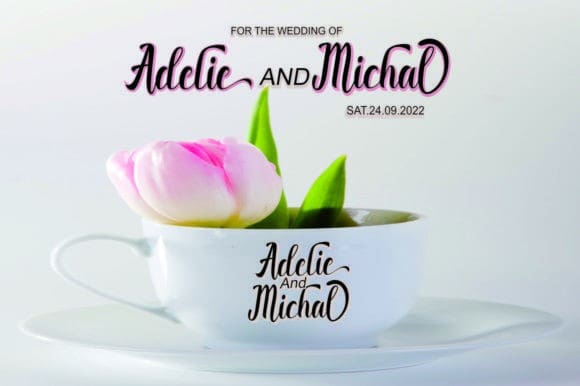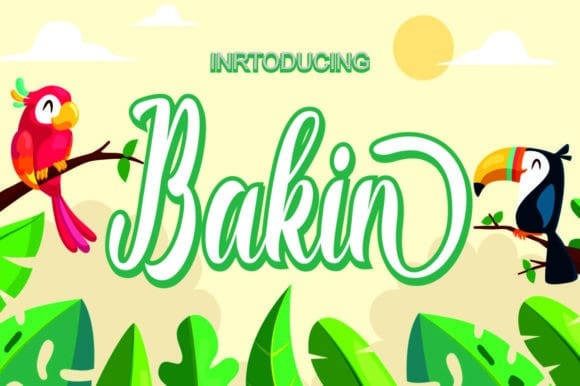
Bakin Script Font
Bakin Script Font is a lovely, well balanced and featuring a nice flow script font. It is PUA encoded which means you can access all of the glyphs and swashes with ease!